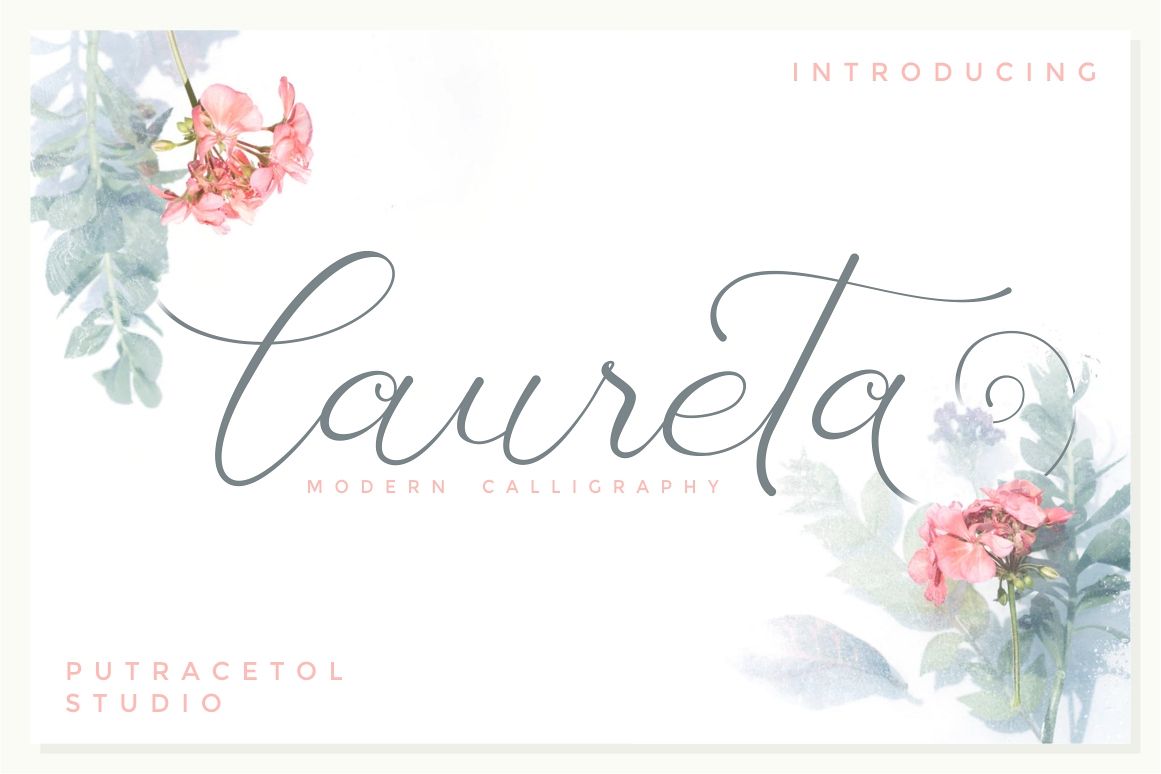
Laureta
Laureta is a modern calligraphy script font. This font is feminime, elegant, messy and modern.
Laureta perfect for headline, logotype, branding, wedding invite and card, elegant logo, poster, packaging, stationery, website, and many more.
Come with open type feature with a lot of alternates, its help you to make great lettering.
This font is also support multi language.